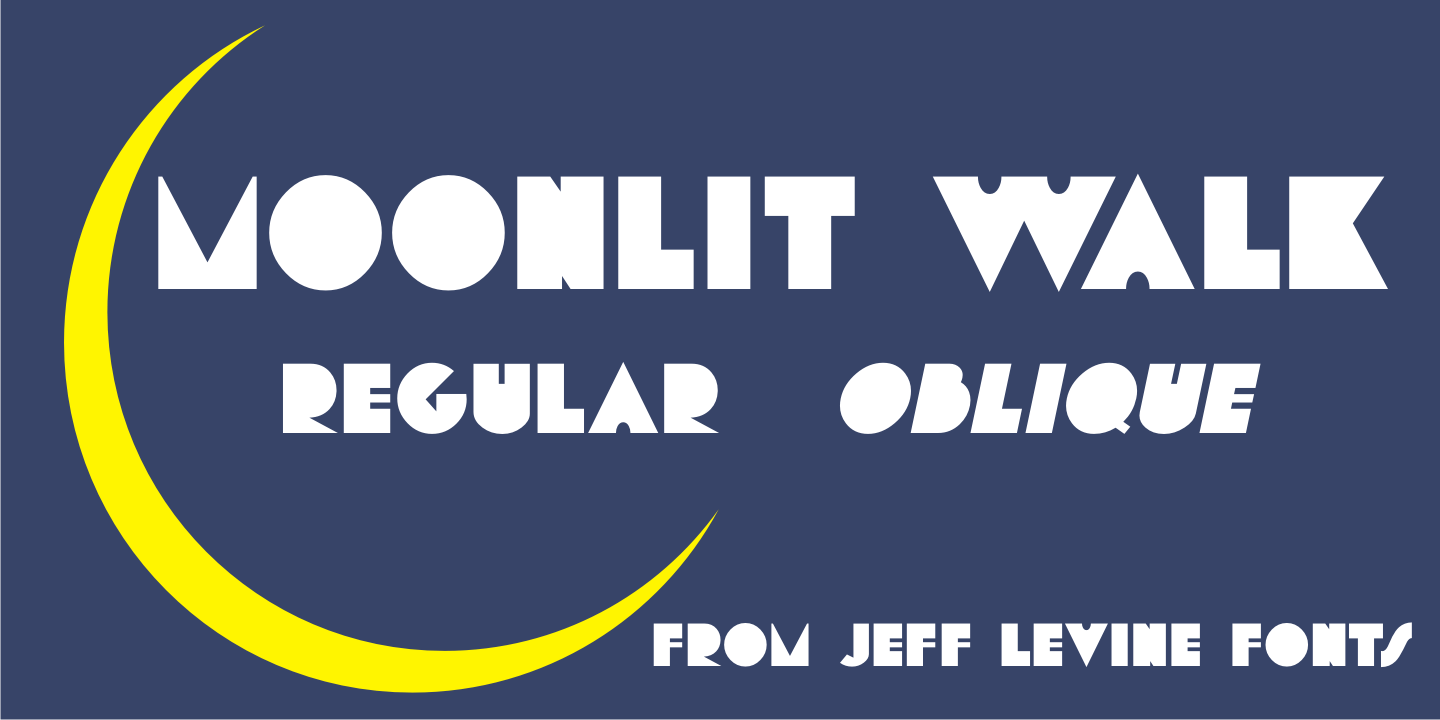
Moonlit Walk
Another variant to the ever-popular Art Deco sans lettering with solid centers (no counters) was found in the hand-lettered title on the cover of the 1933 song 'There's A Ring around the Moon”.
This became the basis for the digital typeface Moonlit Walk JNL, available in both regular and oblique versions.
Moonlit Walk JNL Regular by Jeff Levine Fonts